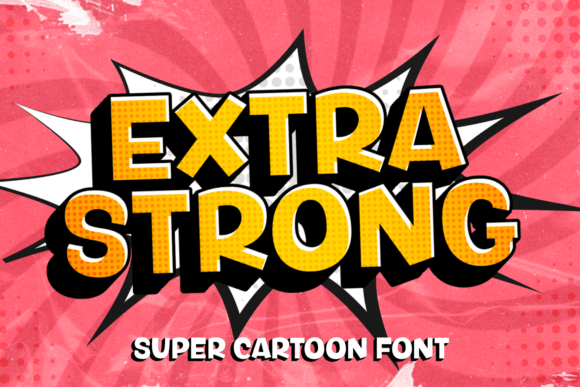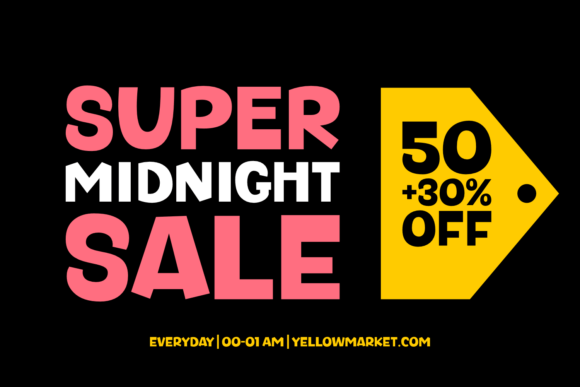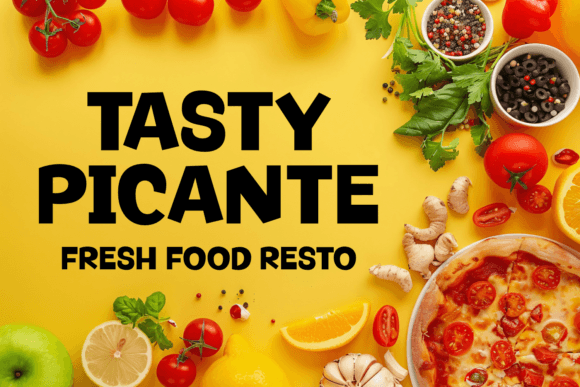
Extra Strong Font: A Bold Cartoon Font for Playful Designs!
About the Extra Strong Font
We are excited to introduce Extra Strong Font, a must-have typeface for any serious designer. Extra Strong is a super cartoon font that bursts with energy and playfulness. Each letter is exaggerated in size and shape, featuring bold lines and dynamic curves reminiscent of comic book characters. The font exudes a sense of strength and vigor, making it perfect for conveying action, excitement, and adventure. With its larger-than-life appearance, “Extra Strong” commands attention and adds a touch of whimsy to any design project. Whether used for comic books, posters, logos, or children’s media, this font brings a sense of fun and dynamism to the forefront, making it an ideal choice for projects that aim to captivate and entertain audiences of all ages.
Extra Strong Font Usage Examples
Extra Strong Font Example